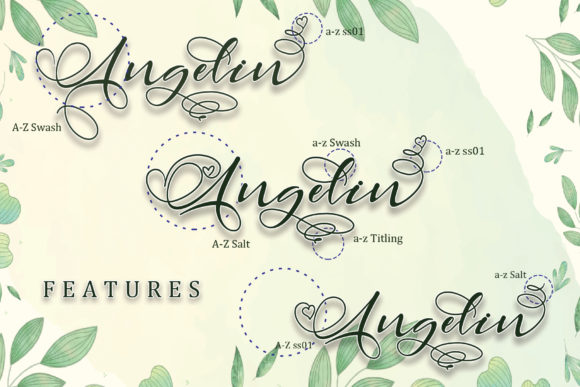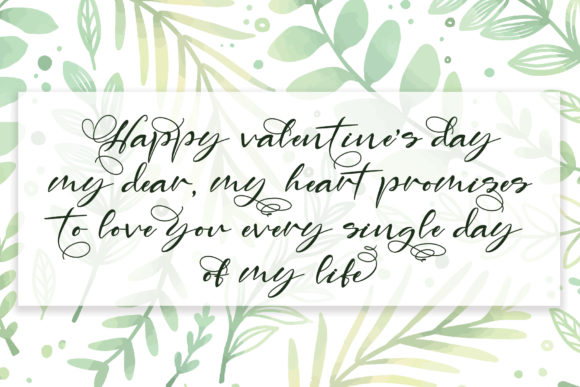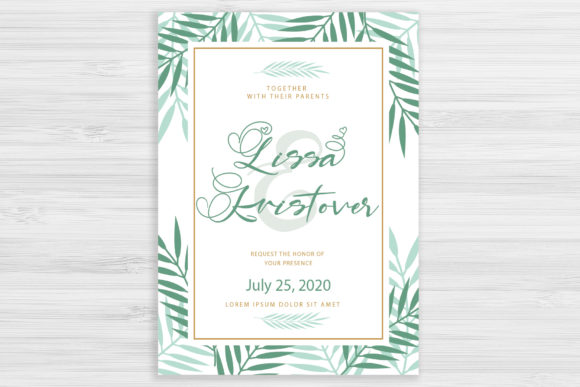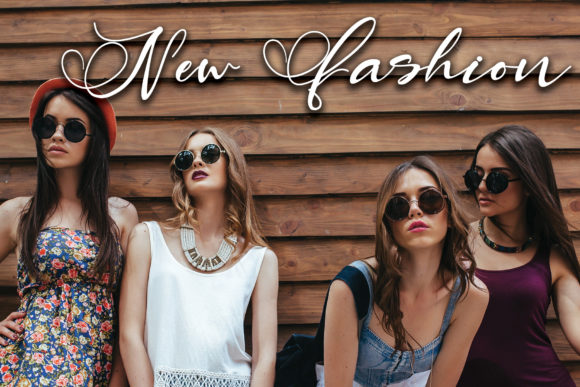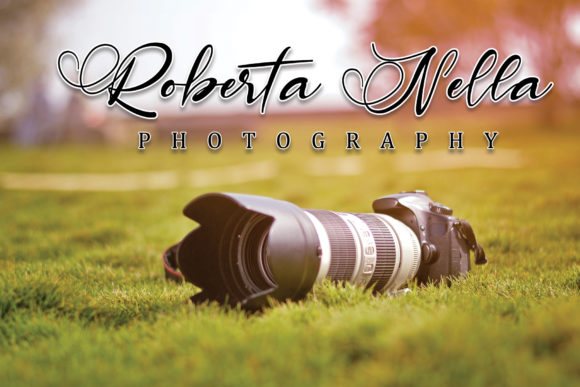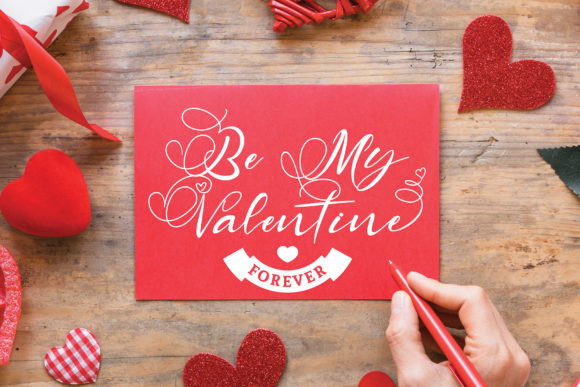
Discover the Elegance of Angelin Font: A Perfect Addition to Your Crafting Projects
Are you a designer or crafter looking for a font that can add a touch of romance and elegance to your projects? Look no further than Angelin Font. This gorgeous script font is designed to bring a sense of sophistication and whimsy to any crafting project, making it perfect for a wide range of applications, from wedding invitations and stationery to digital art and craft designs.
What Makes Angelin Font So Special?
Angelin Font is not just any ordinary script font. It is a PUA (Private Use Area) encoded font, which means that you can easily access all of the beautiful glyphs and swashes without having to worry about complicated coding or design workarounds. This feature makes it incredibly user-friendly, allowing you to focus on the creative aspects of your project rather than getting bogged down in technical details.
A Wealth of Special Features
One of the standout features of Angelin Font is its wealth of special features, including alternate glyphs and ligatures. These features allow you to customize your text and add unique flourishes that will make your project stand out from the crowd. Whether you’re looking to create a bold statement or a subtle accent, Angelin Font has the tools you need to bring your vision to life.
Angelin Font is an ideal choice for designers and crafters who want to add a touch of elegance and sophistication to their projects. Its versatility makes it suitable for a wide range of applications, from:
- Digital art and illustrations
- Craft designs and patterns
- Signs and banners
- Packaging and branding
Why Choose Angelin Font?
So why choose Angelin Font for your next project? Here are just a few reasons:
- Elegant and sophisticated design: Angelin Font is designed to bring a sense of romance and whimsy to your projects.
- Easy to use: As a PUA encoded font, Angelin Font is incredibly user-friendly and easy to access.
- Customizable: With a wealth of special features, including alternate glyphs and ligatures, you can customize your text to suit your project’s needs.
- Versatile: Suitable for a wide range of applications, from digital art to craft designs.
Tips for Using Angelin Font
To get the most out of Angelin Font, here are a few tips:
- Experiment with different sizes and styles: Angelin Font looks great in a variety of sizes and styles, so don’t be afraid to experiment and find the perfect look for your project.
- Use it in combination with other fonts: Angelin Font pairs well with a range of other fonts, so try combining it with different fonts to create a unique look.
- Take advantage of the special features: With a wealth of special features, including alternate glyphs and ligatures, make sure to take advantage of these to add a touch of elegance and sophistication to your project.
Angelin Font is a gorgeous and elegant script font that is perfect for designers and crafters looking to add a touch of romance and sophistication to their projects. With its PUA encoding, wealth of special features, and versatility, it’s an ideal choice for a wide range of applications. Whether you’re creating wedding invitations, digital art, or craft designs, Angelin Font is sure to bring a touch of elegance and whimsy to your project.